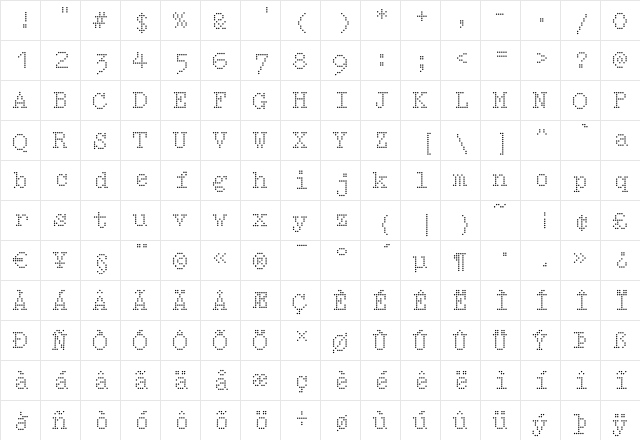
Intimo One Font Preview
Intimo One
Intimo One Font Details
Design Context for Intimo Typeface
Intimo takes a measured approach to typography — its balanced proportions and neutral character make it a reliable workhorse for both digital and print work.